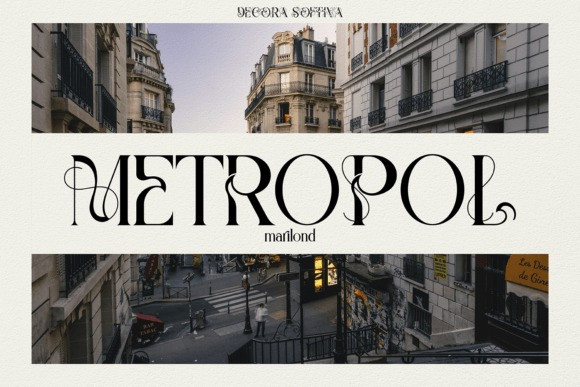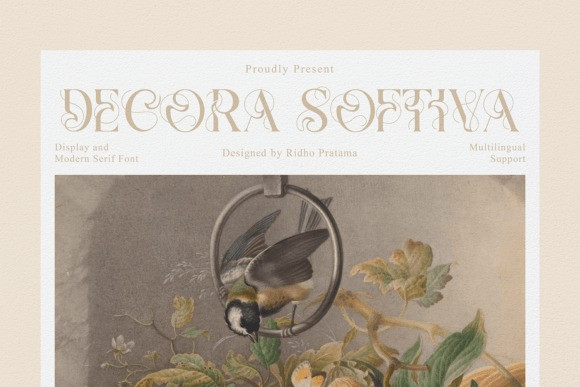
Decora Softiva Font
Decora Softiva Font is a modern serif font with swirl decorative ornaments. Use this serif font to add that unique and aesthetic touch to create spectacular designs!